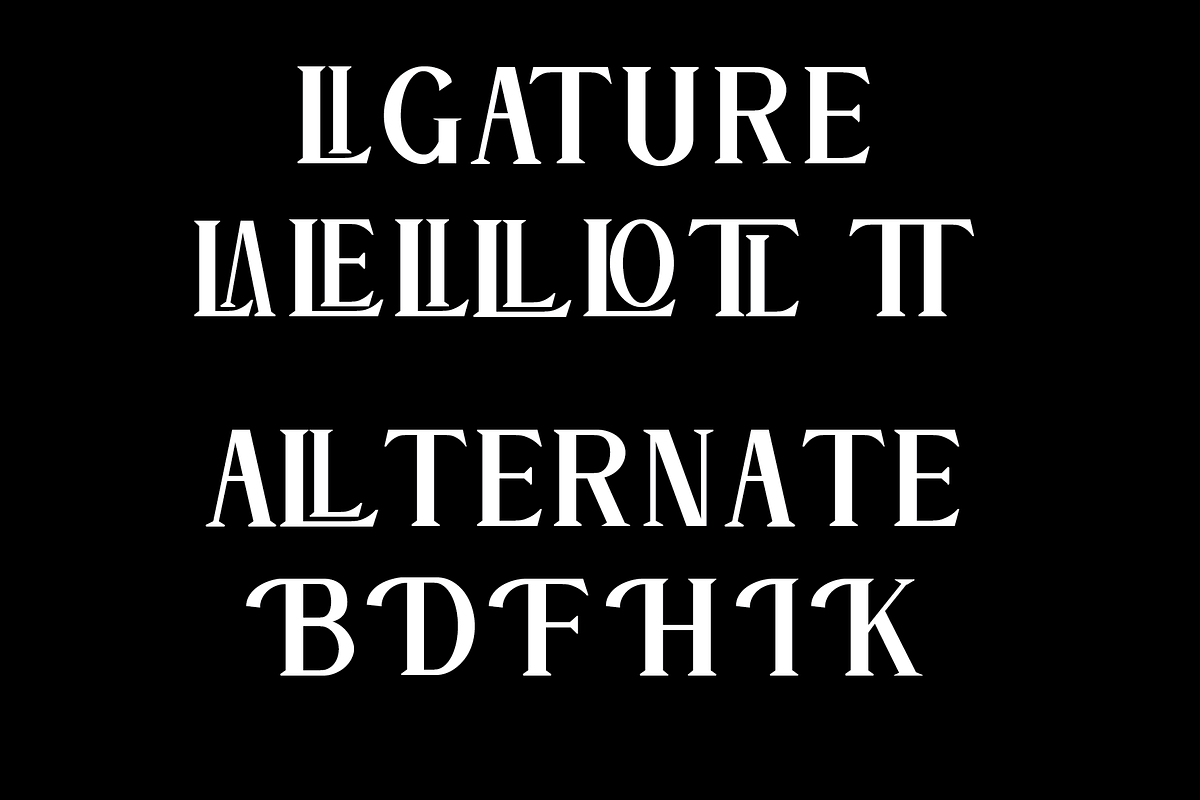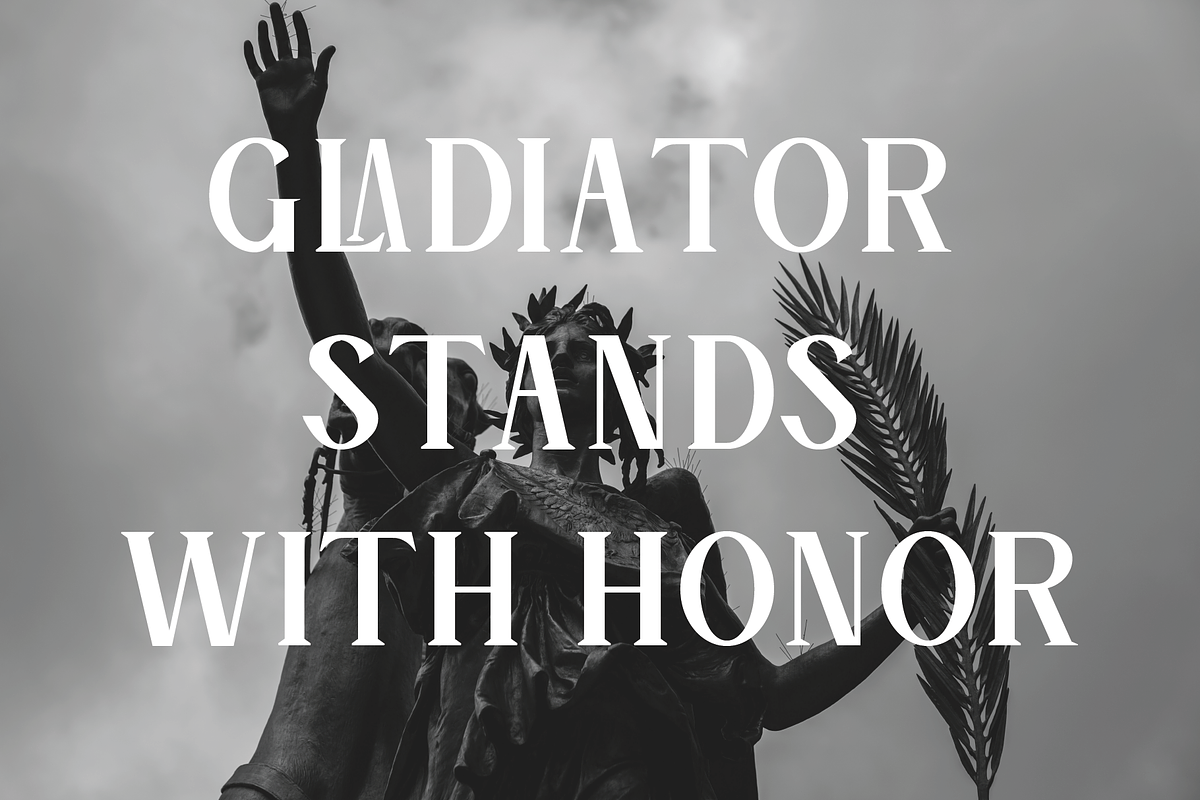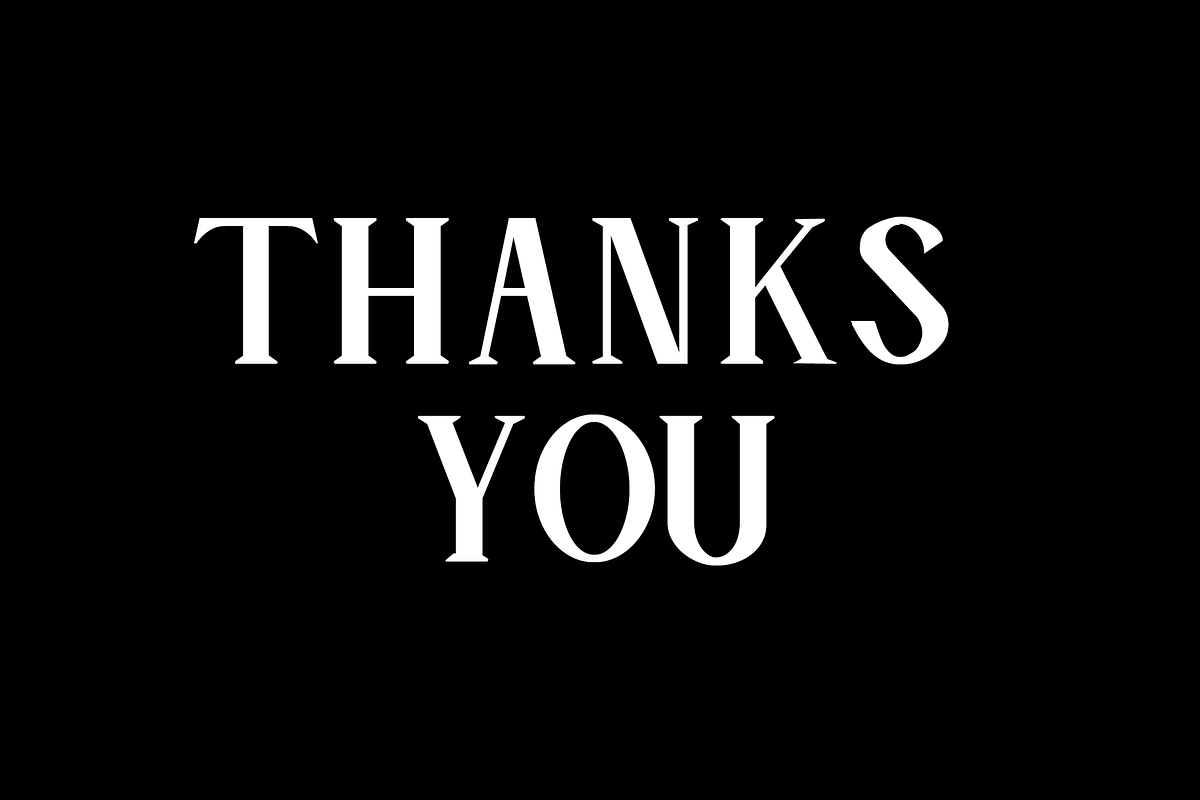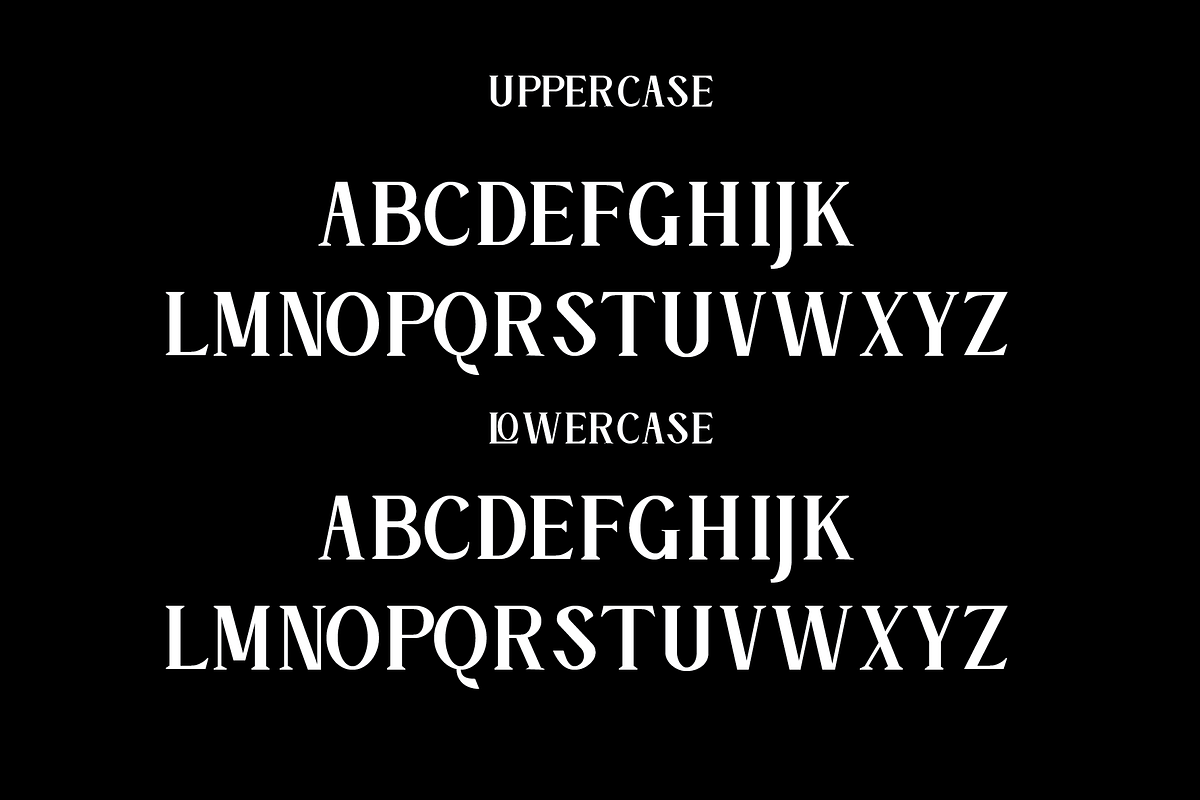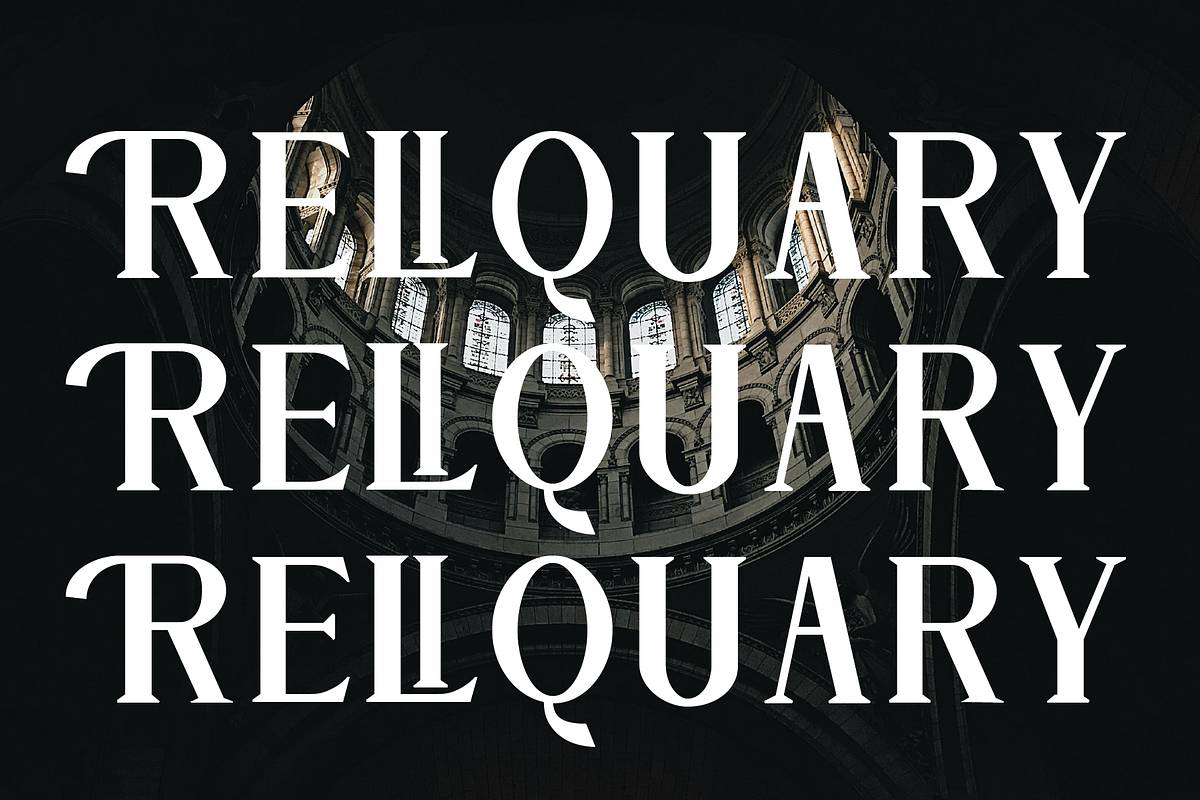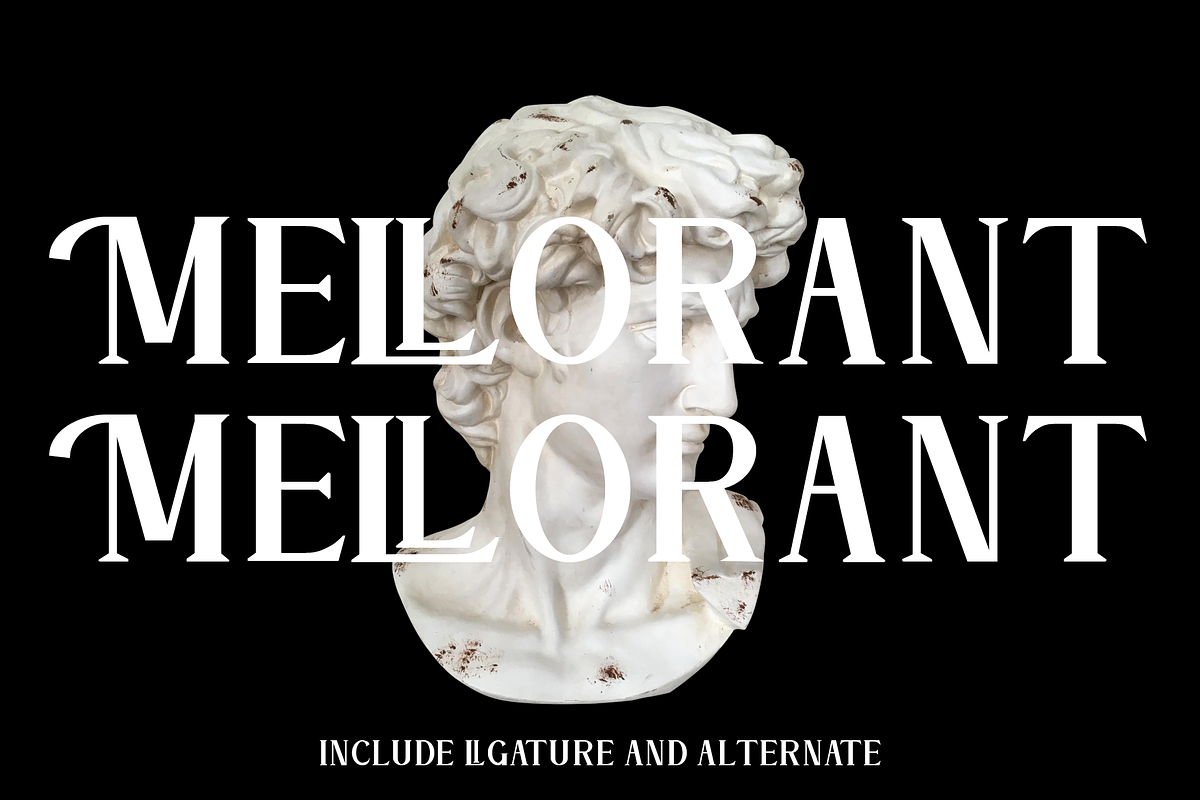
Mellorant – Modern Elegant Serif
Mellorant – Modern Elegant Serif, from Santistudio. Perfectly crafted for a timeless and luxurious visual impact. Mellorant is suitable for a wide range of design needs such as: logos, branding projects, packaging design, homeware, mugs, quotes, posters, shopping bags, apparel, book covers, business cards, invitations, greeting cards, labels, photography, watermarks, special events, and all other sophisticated projects that require a touch of modern serif elegance.